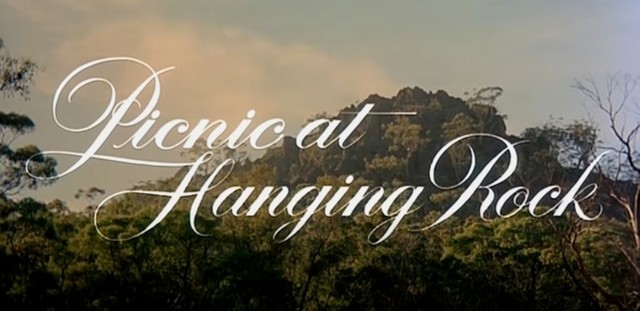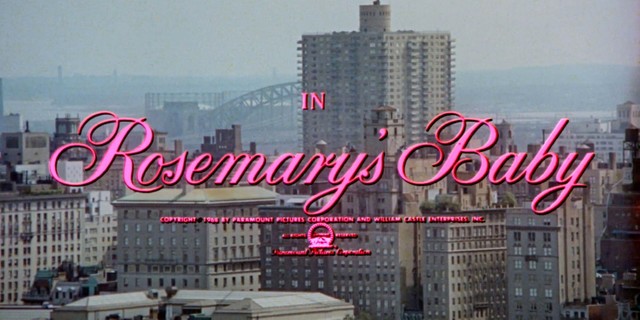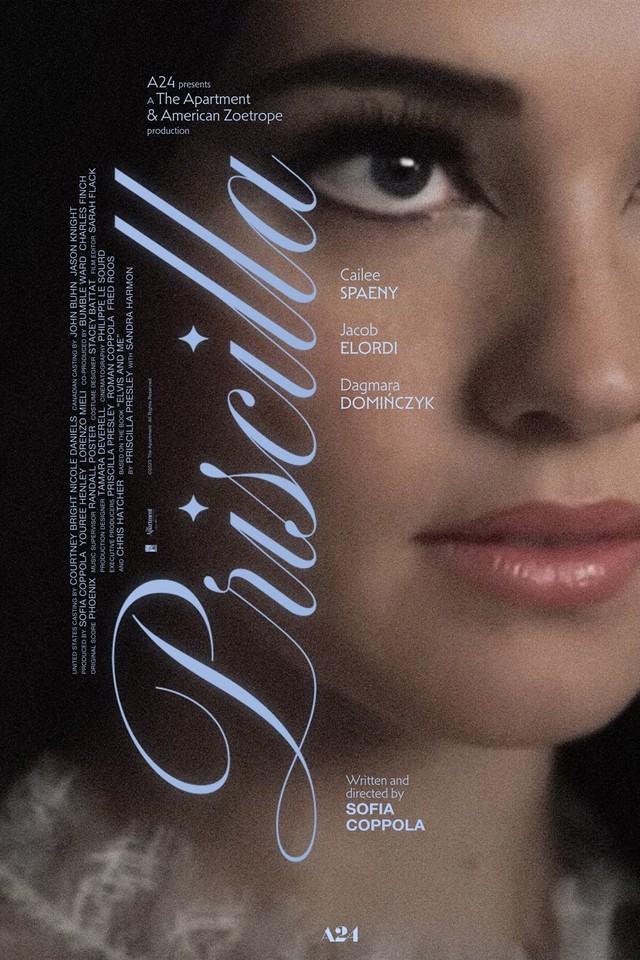
Claire Marie Healy on swirly fonts in our times of girl vocab & bow-festooned TikToks —
For today, London-based writer Claire Marie Healy takes on the rise of what she dubs “the coquette font” in our moment of girl vocab & bow-festooned TikToks.
Claire is a discerning voice in film, fashion, and all things girl related. I first got to know her when she was editor of Dazed Magazine and through her writing for AnOther, the British Film Institute, and The Guardian. She’s also Contributing Books Editor at A24 (the brains behind that dance floor book) and published Look Again: Girlhood with the Tate. Today, Claire investigates the world of font coquetry and how the swirling, ornate Copperplate Script genre came to be synonymous with girliness. She’s also got a hunch where the trend is headed next. So over to Claire.
When Did Copperplate Become Coquette?
by Claire Marie Healy
Think of Copperplate Script typefaces as instant formula for girlhood: powdered milk for hyper-feminization; refined like sugar. Florid, laboured, swirly, the style’s repetition across different formats — film title sequences, promotional posters, diamantéd t-shirts made in China — iterate the kind of watertight meaning in culture that feels long set-in-place. But while the association with a certain ultra-femininity is well-established, this wasn’t necessarily always the case. Deriving from a centuries-old historical context, it was Copperplate Script’s use in the movies that gave us its current legibility as what I like to call, simply, the coquette font.
A brief lesson for those in this tweet’s camp. Coquette: an old word meaning a woman who trifles with men’s affections; one who is given to flirting or coquetry. These days, coquette is an aesthetic trend displayed through the explicitly girlish that reached new heights in 2023, a period dubbed by many as “the year of the doll”. The impact of the trend has been discussed by critics as a force for ill, encouraging anything from self-infantilization in grown women, to a certain kowtowing to men in heterosexual relationships. As I have previously argued for Dirt, however, contemporary forms of coquette still contain some of the mischief-making, and lack of respect for men, of the original meaning.
Back to Copperplate Script. The exact origins of its own hyper-femme slant are — like the looping, ornate, totally-extra lettering itself — somewhat difficult to make out. Drawn from the calligraphy style, and so-called after the “copper plates” they were etched into for reproduction, its predominant trait is that its line transitions quickly from thick to thin, depending on the direction the pen is moving: that is, each letter progresses with elegance, because true elegance is never feeling rushed. The technique of copperplate printing dates from the 16th century, though in terms of the writing style, the term refers to the styles of writing that penmanship masters developed in the 18th century (reproduced in copperplate engravings). As a calligraphic style, rather than a typeface, copperplate scripts are firmly associated with men with names likely to end in The Elder, and who are very much dead.
At the same time as such handwriting styles are flourishing among the guys, however, the culture at large is on a precipice of a “Great Masculine Renunciation”: a movement in which men gave up their “brighter, gayer, more elaborate, and more varied forms of ornamentation, leaving these entirely to the use of women.” This is why men stopped accessorising, and it’s also the seeds of the decorative being associated with femininity.
If you’ll allow the jump-cut, I date the moment that Copperplate Script’s prestigious masculinity becomes legible as acutely coquette as 1968. That’s not to say that such ornateness and fussiness had not previously registered as feminine: earlier examples of the genre are spotted in the title cards of romantic films marketed to women, for instance, or — as is oftentimes the case now — straight-up period pieces. But it took the opening beats of a certain smash-hit movie, released that year, to take this style to another extreme: crafting a moment in which romantic notions of girlishness — as obedience, smallness, domesticity — become recognizable as a dangerous trap.
There’s a playfulness with the dark underside of girlish tropes that is key to true coquetry: something that bubbles up only with clear-eyed knowledge of the world’s threats against girls, producing a tangibly vengeful spirit in response. I’m thinking of anything from the critical hopskippery and gaze-play of figures like Nymphet Alumni; the unnervingly babyish combinations of Japanese designer Jenny Fax; to teenage girls on TikTok who tie satin ribbons around kitchen knives, deodorant bottles, and antidepressants. Due to the interaction of its aesthetics with its actual plotline, we can understand the use of Copperplate Script in Rosemary’s Baby’s title sequence in much the same way. An adaptation of the smash Ira Levin novel, it has long been deemed one of the most cursed movies ever made (never mind the later crimes of the director). But if the events of 1968 — a time when, as Joan Didion put it, “the jitters were setting in” — produces the perfect conditions for this movie about a woman impregnated by the devil, it’s also the ideal atmosphere for a little font coquetry.
Title designer Wayne Fitzgerald’s use of Copperplate Script’s ornate formality is one ingredient among color, moving image and sound design that together sets up the plot of the film before it’s really begun. Employed in the title sequence only, rather than in its promotion (Rosemary’s Baby’s controversial campaign used, to my eye, Neue Haas Grotesk), viewers would have first come across the cursive title cards in their cinema seats: the shock of that pepto-bismol pink lettering, overlaid onto the recognisable Manhattan cityscape. As a title sequence, it’s best described as insistent: you can’t unhear Mia Farrow’s accompanying la la, la la la-lullaby, and you can’t unsee that pink lettering. Fluoro-colors didn’t even exist before the 1970s, so this pink — which is so pink — literally welcomes in a new decade.
But though this hot color flirts itself all the way into the future, the effect is no Marilyn Monroe open-mouthed kiss. The coquette font just doesn’t allow for that. In the end, the pink Copperplate Script credits moving against this grey, industrial cityscape are like a girl teasing the middle-aged banker in her DMs: refusal is one of her best-employed tools. She may indeed be “baby”, but — like the one in the cot at the end of the film — she is far from totally innocent.